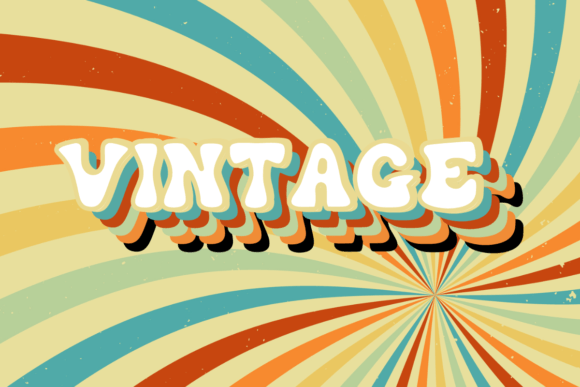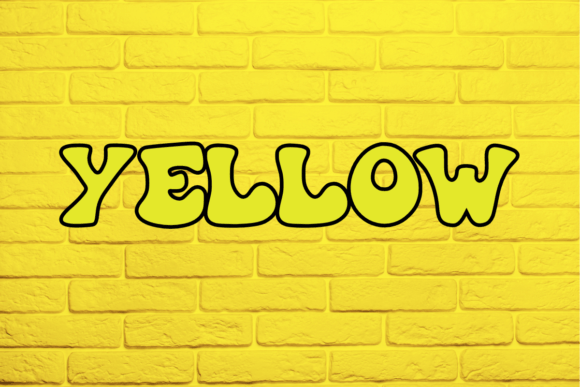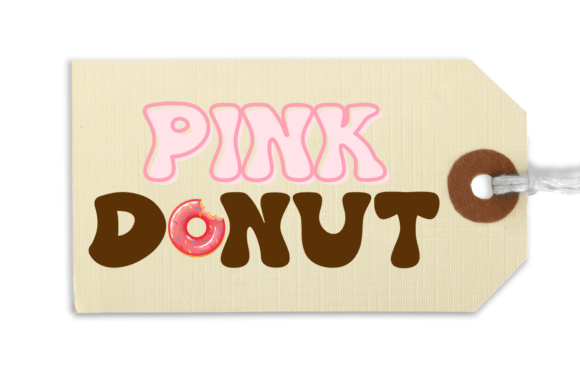
Introduction to Groovy Cutie Font
Remember the thrill of creating a DIY craft project as a kid, where the final product was a true reflection of your imagination? That same sense of excitement and playfulness can be captured with the Groovy Cutie Font, a retro, fun, and bold display font that’s perfect for any children’s activity or school project.
As designers, we’re always on the lookout for design resources that add a touch of authenticity to our projects. The Groovy Cutie Font is a valuable addition to any design arsenal, offering a high-quality, free download that can be easily customized with a transparent background. Its chunky lettered style makes it an ideal choice for creative projects, from party invitations to educational materials.
- Unique Design: Groovy Cutie Font offers a distinctive and playful style perfect for creative projects, making it an ideal design resource for artists and designers.
- High-Quality Graphics: This font is designed with high-quality graphics, ensuring crisp and clear text, ideal for use in various design applications.
- Transparent Background: The Groovy Cutie Font features a transparent background, allowing for seamless integration into various design elements and backgrounds.
- High Resolution: The font is designed with high resolution, making it suitable for use in large-scale designs, such as billboards, posters, and other print materials.
Honest Review: Groovy Cutie Font
I recently stumbled upon the Groovy Cutie Font and I must say it’s a great addition to any designer’s toolkit. As a creative project enthusiast, I appreciate high-quality design resources like this one.
- ✨ Unique and playful design that’s perfect for creative projects
- ✨ High-quality font files that ensure smooth rendering
- ⚠️ Limited character set, which may not be suitable for lengthy text
- ⚠️ No transparent background option, which might limit its use in certain designs
Overall, I’m impressed with the Groovy Cutie Font. While it may not be perfect, its unique design and high-quality files make it a valuable resource for designers working on creative projects. I’d definitely consider using it in my next design project.
With a little creativity, the Groovy Cutie Font can be a great design resource for anyone looking for a fun and quirky font to add some personality to their work.
Tips for Getting the Most Out of Groovy Cutie Font
Use the Groovy Cutie Font with a transparent background to add a pop of color and create a visually appealing design. You can also pair it with other fonts to create a unique and eye-catching look.
The Groovy Cutie Font is perfect for birthday invitations, party decorations, and other creative projects that require a playful and fun design. It’s also great for designers who want to add a touch of whimsy to their designs.